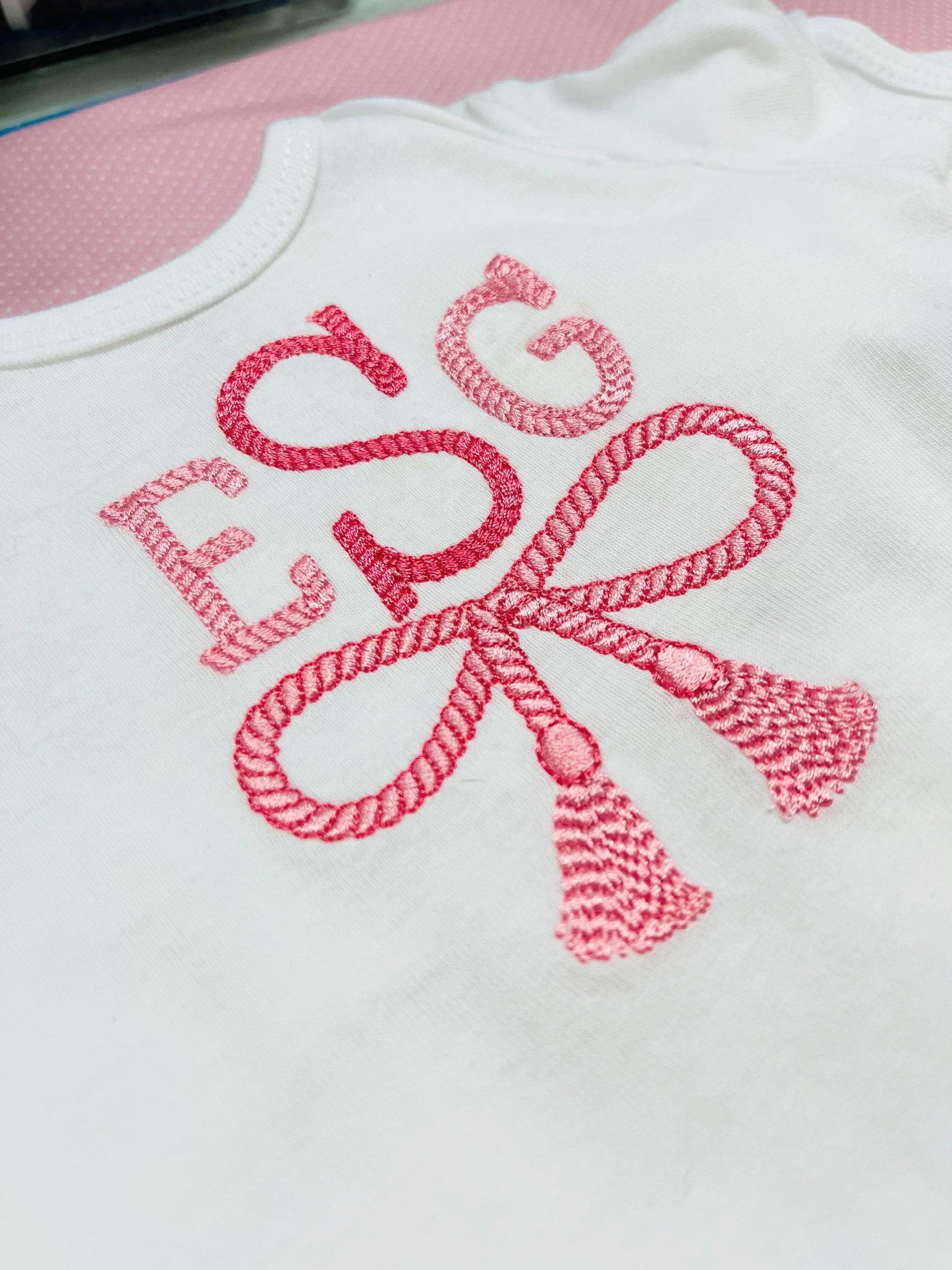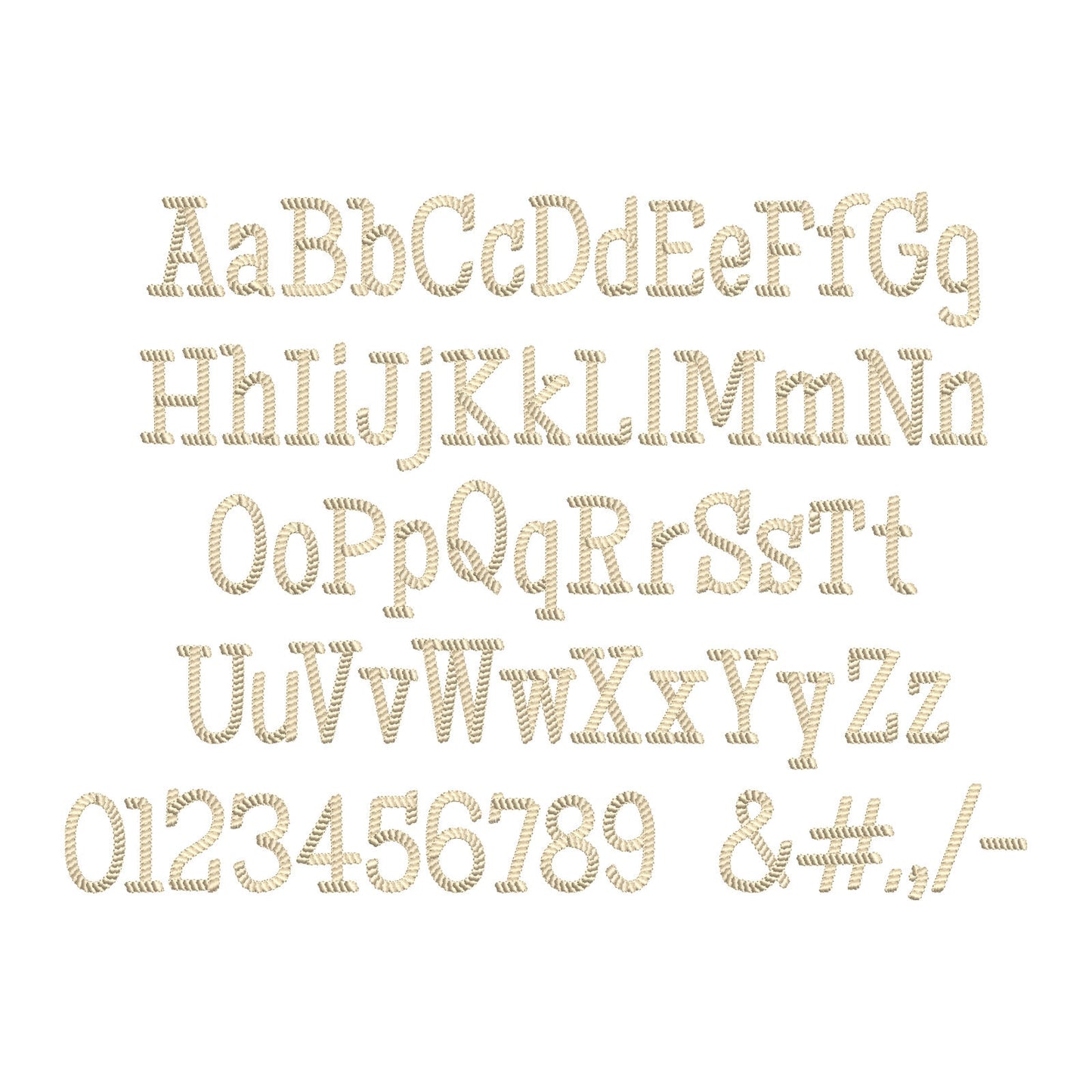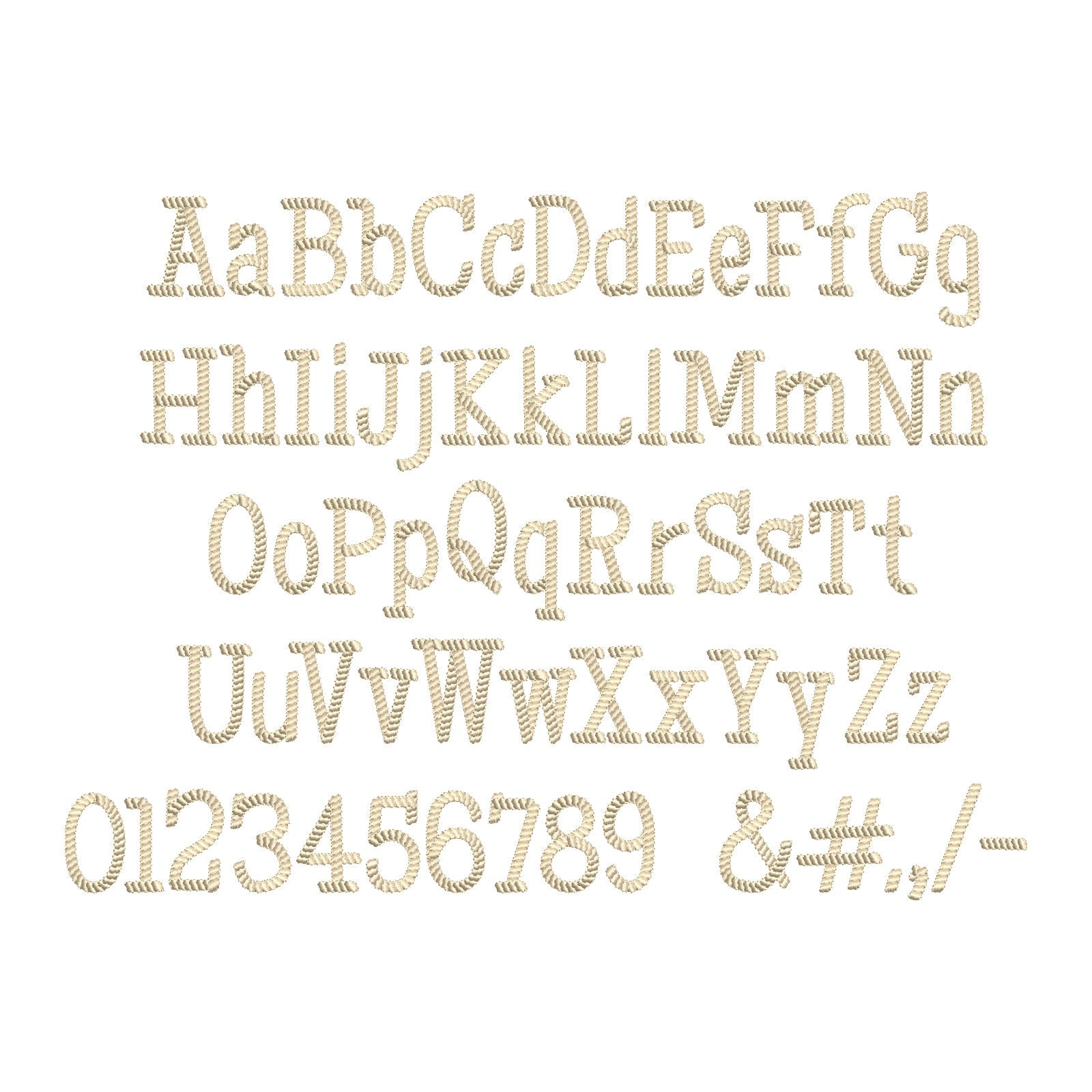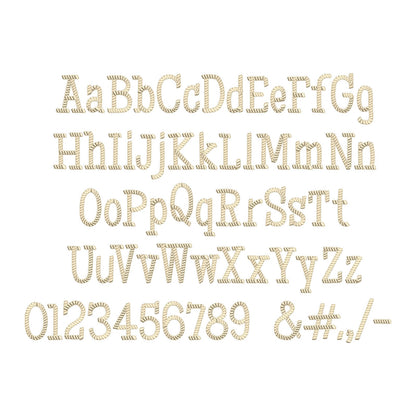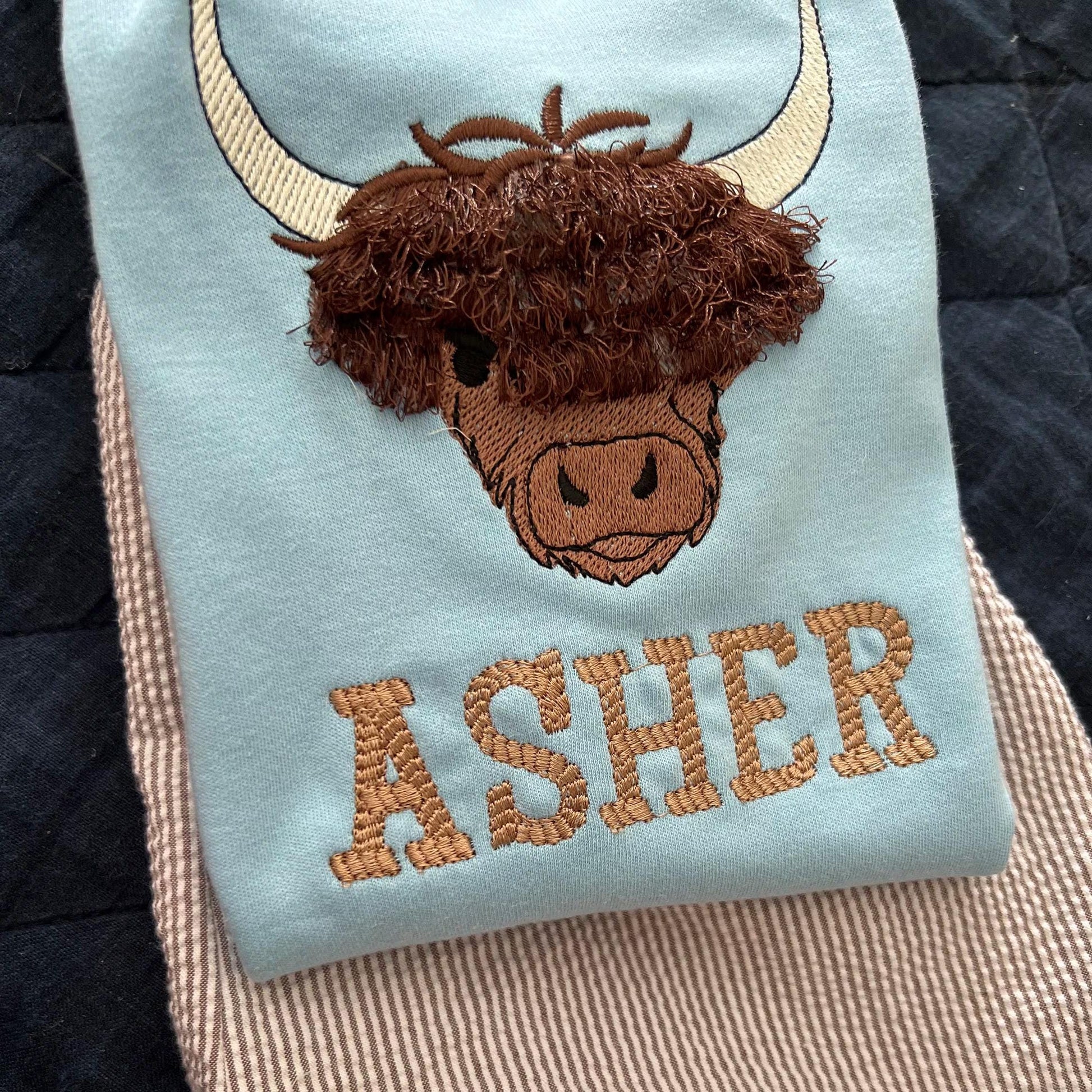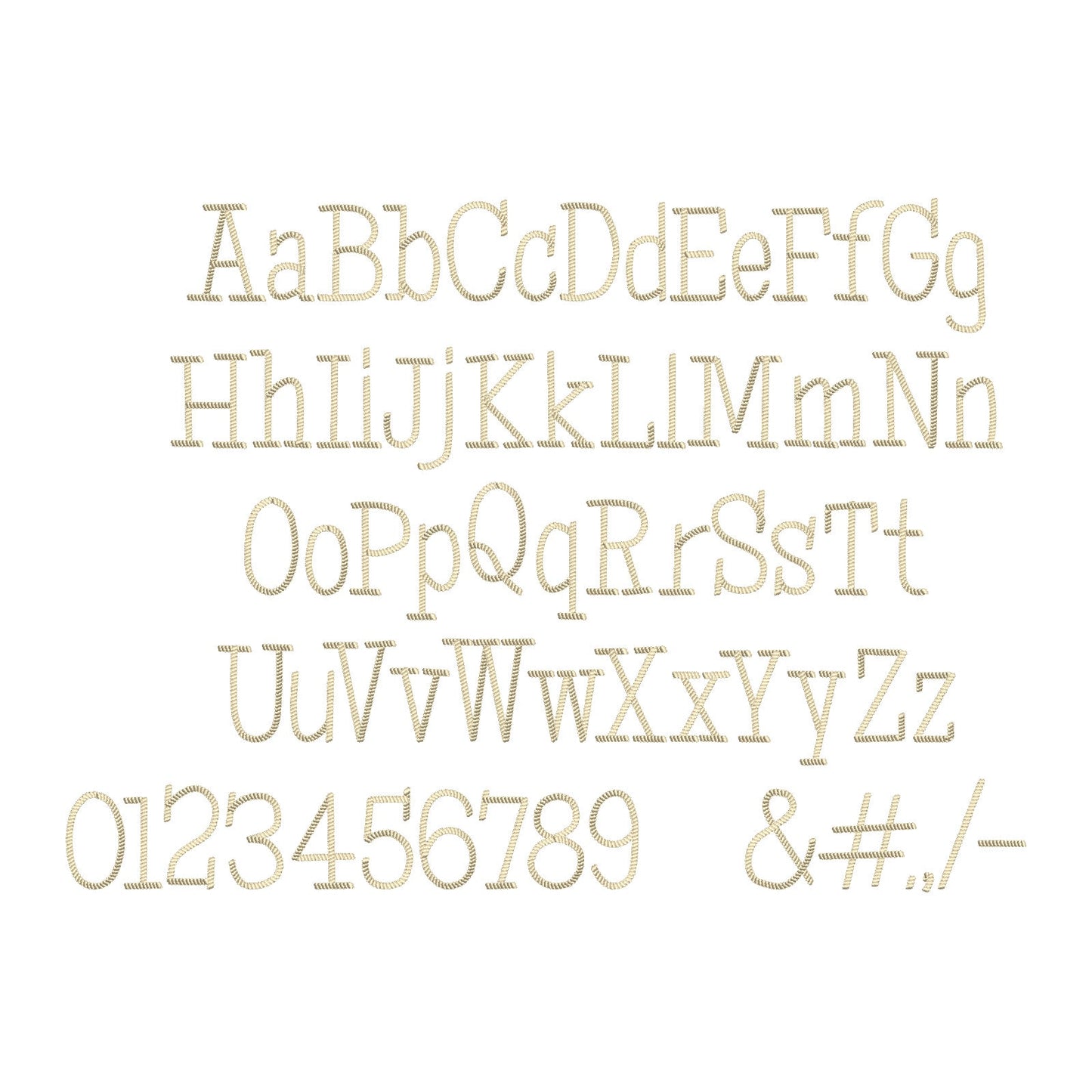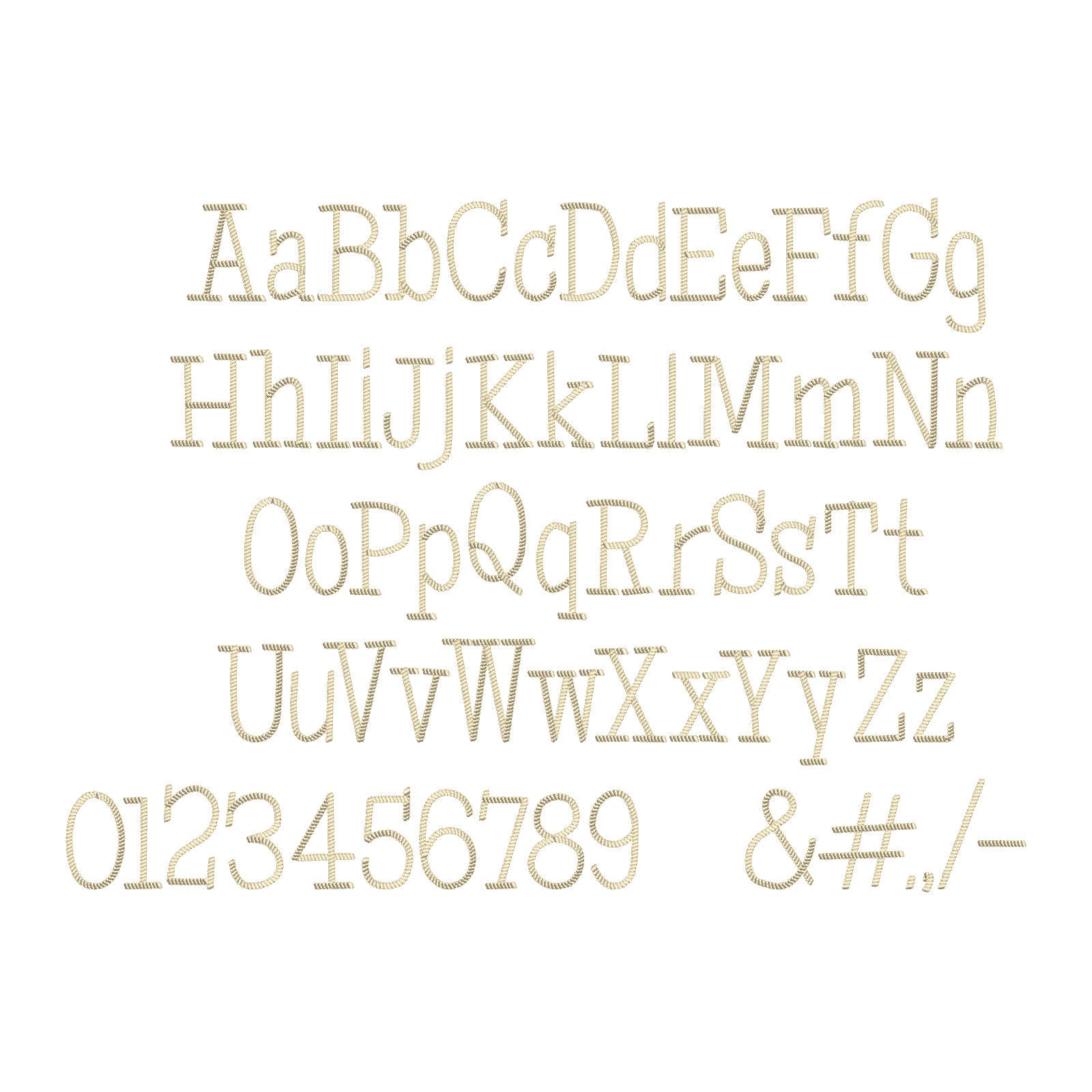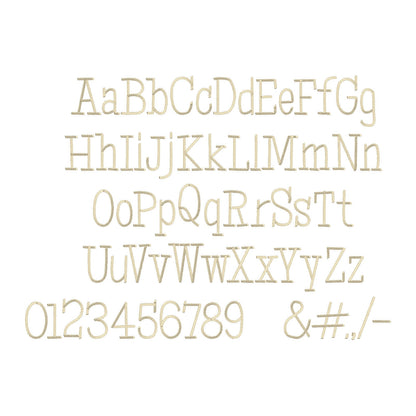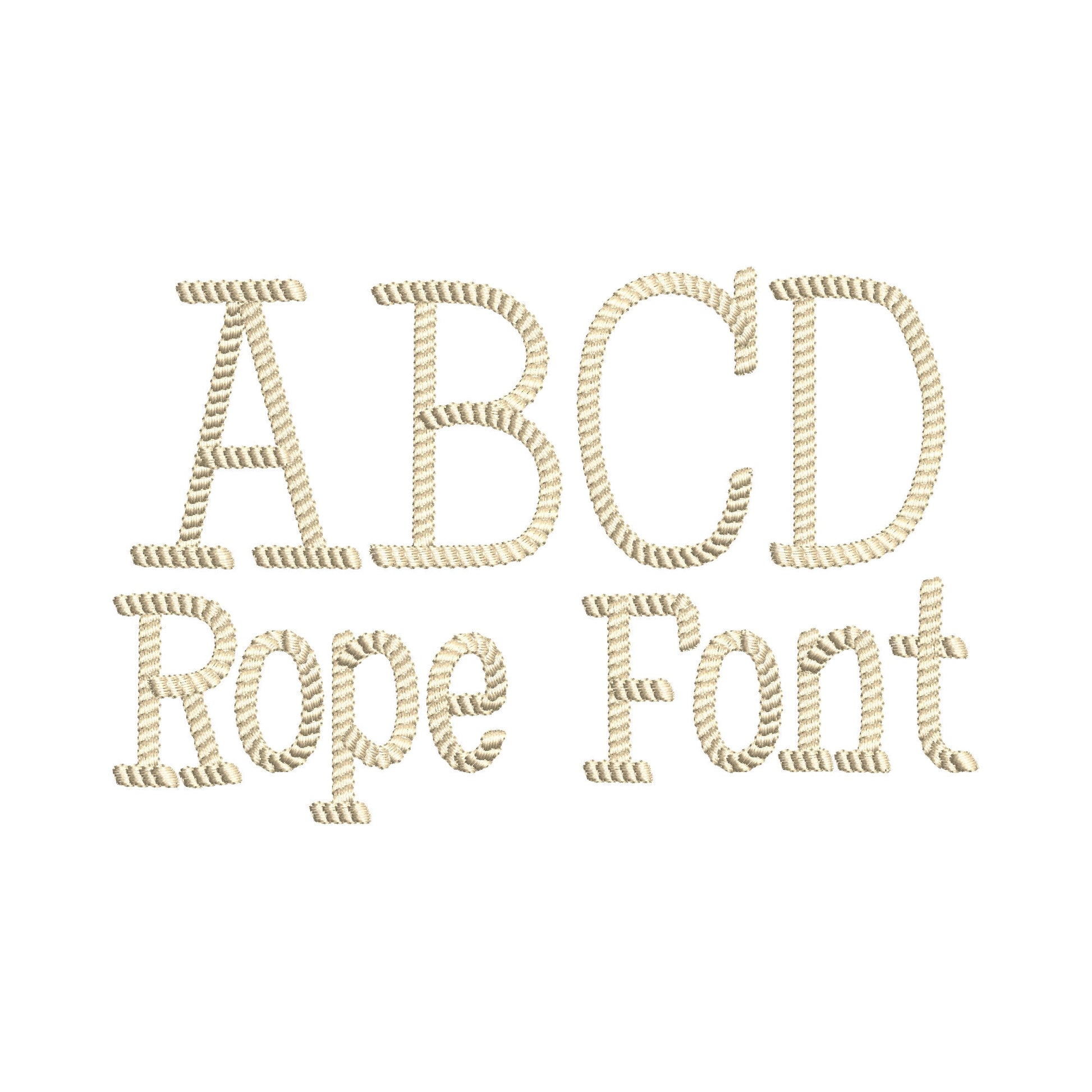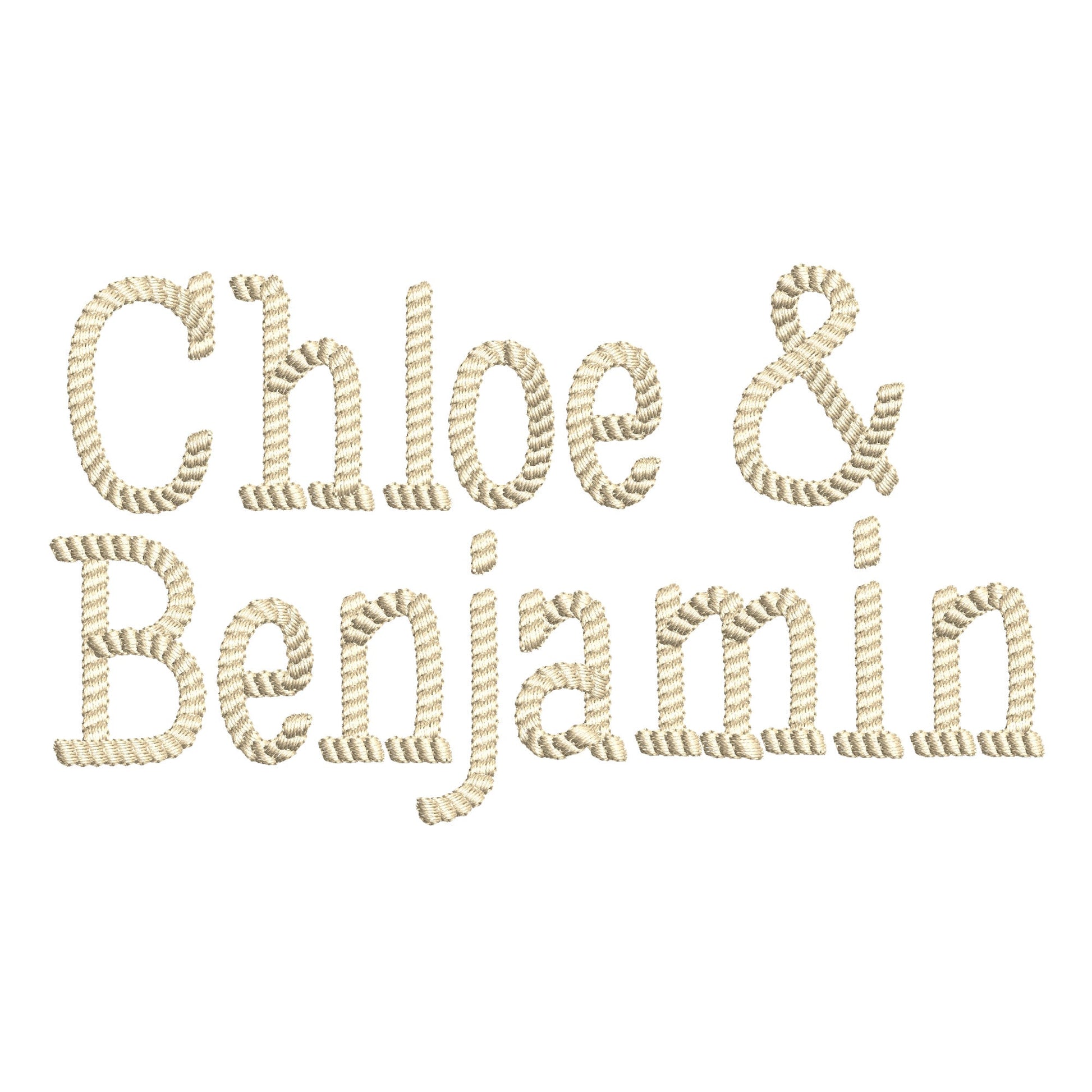
Rope Stitch Font
A playful rope font for cowboy and cowgirl names and monograms. Fun for western shirts, hats, bags and kids' outfits.
Uppercase and lowercase letters, numbers 0 to 9 and punctuation. Five sizes: 1.2, 1.5, 1.8, 2.2 and 2.6 inches. Each letter looks like a twisted lasso rope.